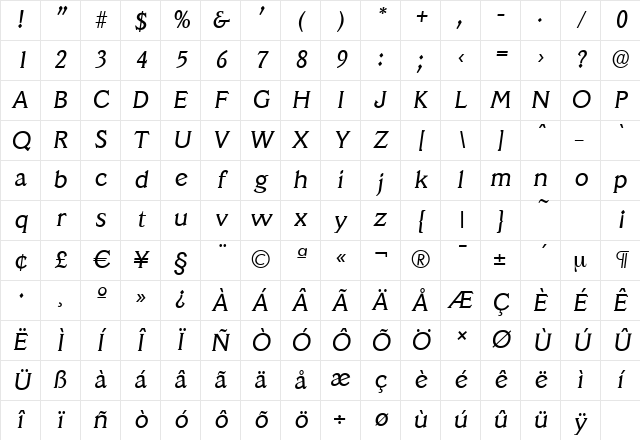
VeracruzSerial Italic Free Font
VeracruzSerial Italic
VeracruzSerial Family
Design Context for VeracruzSerial
VeracruzSerial is a composed and adaptable typeface that performs quietly and consistently across a wide range of design contexts. The slanted form adds forward momentum and visual energy.
Pro Tip: Use VeracruzSerial for emphasis, pull quotes, and subheadings where its slanted energy can add rhythm to the layout.